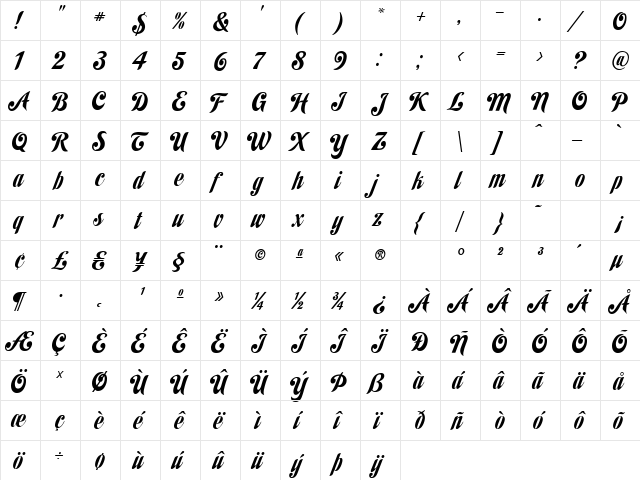
HabanoST Regular
Design Context for HabanoST Typeface
HabanoST takes a measured approach to typography — its balanced proportions and neutral character make it a reliable workhorse for both digital and print work.